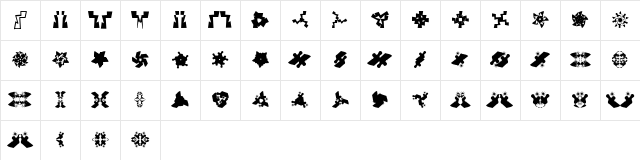
U-Mix-U Regular
Design Context for U-Mix-U
U-Mix-U is a composed and adaptable typeface that performs quietly and consistently across a wide range of design contexts.